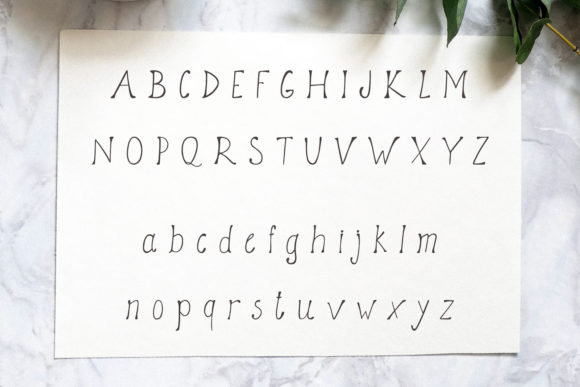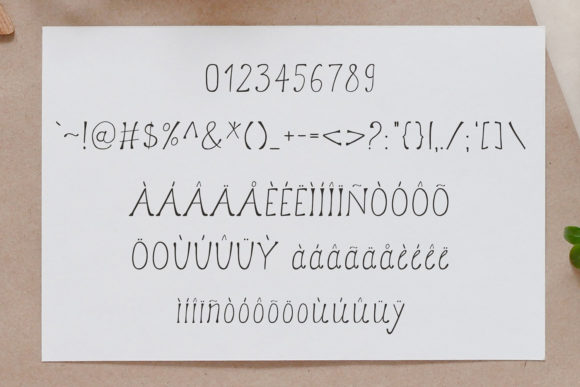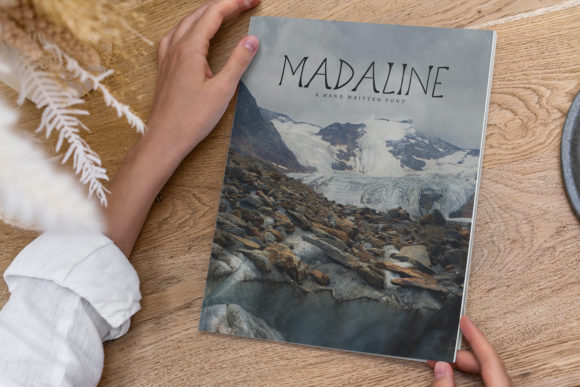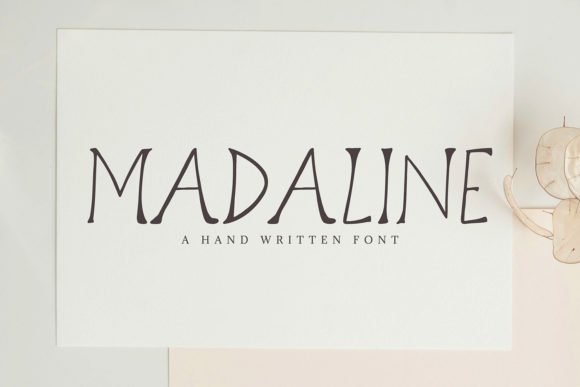
Introduction to Madaline Font
Madaline is a cool and clean display font.
Whether you are using it for cartoon-related designs, children games, quotes, titles, brand names, book covers, posters, or just any creation that requires a touch of joy, this font is a great choice .
Why Choose Madaline Font?
Madaline Font offers exceptional quality and versatility, making it a valuable addition to your design toolkit. Whether you’re creating for personal projects or commercial use, Madaline Font delivers professional results.